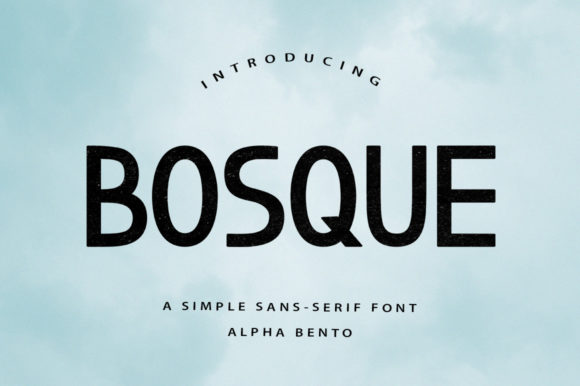
The Ultimate Font for Creatives: A Deep Dive into Bosque Font
I’ll never forget the time I was working on a project for a client who needed a custom greeting card design. I had spent hours crafting the perfect layout, but something was off. It wasn’t until I realized I was using the wrong font that the design truly came together. That’s when I discovered Bosque Font, a clean, casual, and simple styled sans serif font that has since become my go-to for all sorts of creative projects.
An Honest Review of Bosque Font
- ✨ **Clean and Simple Design**: Bosque Font boasts a crisp, modern aesthetic that’s perfect for a wide range of applications, from digital designs to handmade crafts.
- ✅ **Versatility**: Whether you’re creating presentations, greeting cards, or social media graphics, Bosque Font adapts seamlessly to any project.
- 💡 **Easy to Read**: The font’s clear and concise style makes it easy to read, even at smaller sizes.
While Bosque Font is an excellent choice for many projects, there are a few things to keep in mind:
- 🤔 **Limited Embellishments**: As a sans serif font, Bosque doesn’t offer a lot of embellishments or flourishes, which might be a drawback for some designers.
- ⚠️ **Not Suitable for Body Text**: While Bosque is great for headings and titles, it may not be the best choice for lengthy body text due to its clean and simple design.
The Story Behind Bosque Font
Bosque Font was designed with the goal of creating a clean, simple, and versatile font that could be used for a wide range of applications. The designer, inspired by the natural beauty of the Bosque forest, aimed to create a font that was both modern and timeless.
Q: What is Bosque Font best suited for?
A: Bosque Font is best suited for designs that require a clean, simple, and versatile font, such as digital designs, presentations, greeting cards, and crafts.
Q: Is Bosque Font available in different weights?
A: Yes, Bosque Font is available in different weights, including regular, bold, and italic. This allows you to add variety to your designs and create visual interest.
Q: Can I use Bosque Font for body text?
A: While Bosque Font is a great choice for headings and titles, it may not be the best choice for lengthy body text due to its clean and simple design. Consider using a serif font for body text for better readability.